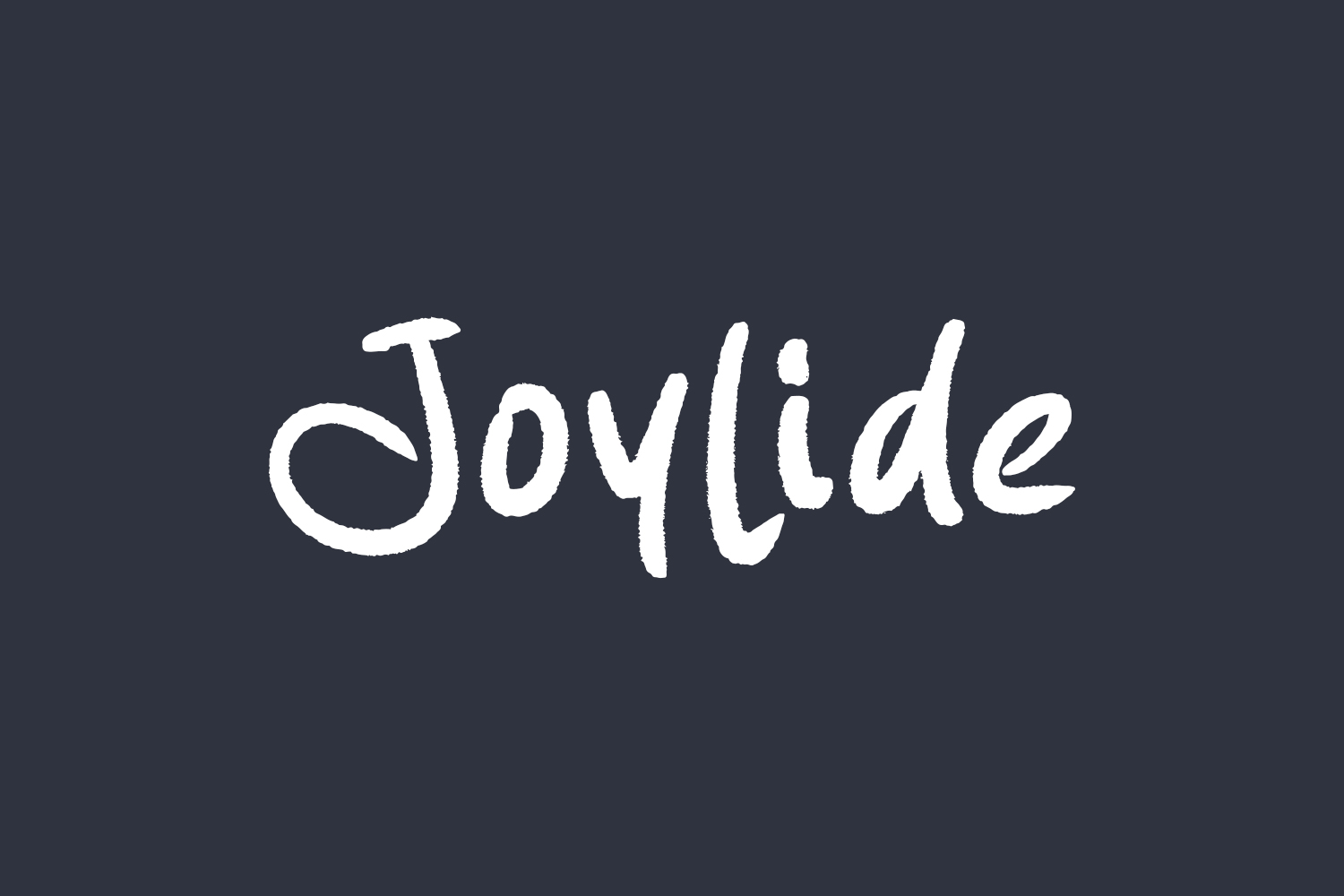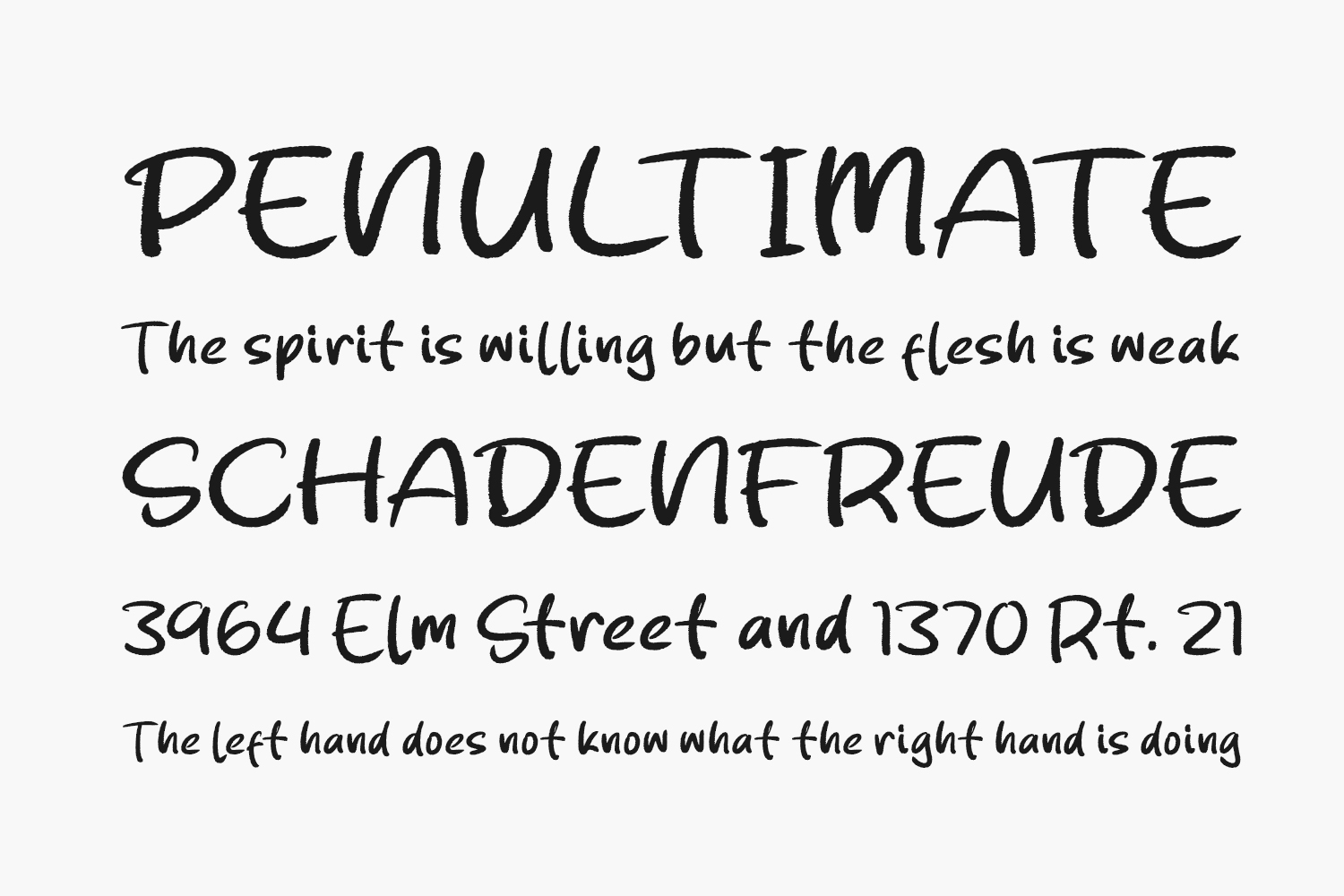
Joylide Free Font is an exquisite monoline handwritten font that lends itself well to logos, branding endeavors, homeware designs, product packaging, mugs, quotes, posters, shopping bags, T-shirts, book covers, name cards, invitation cards, greeting cards, labels, photography, watermarks, special events, and various other delightful projects that crave an elegant script aesthetic. Joylide Free Font is free for personal use only. Please purchase the full version for commercial use.
Designed by Letterena Studios